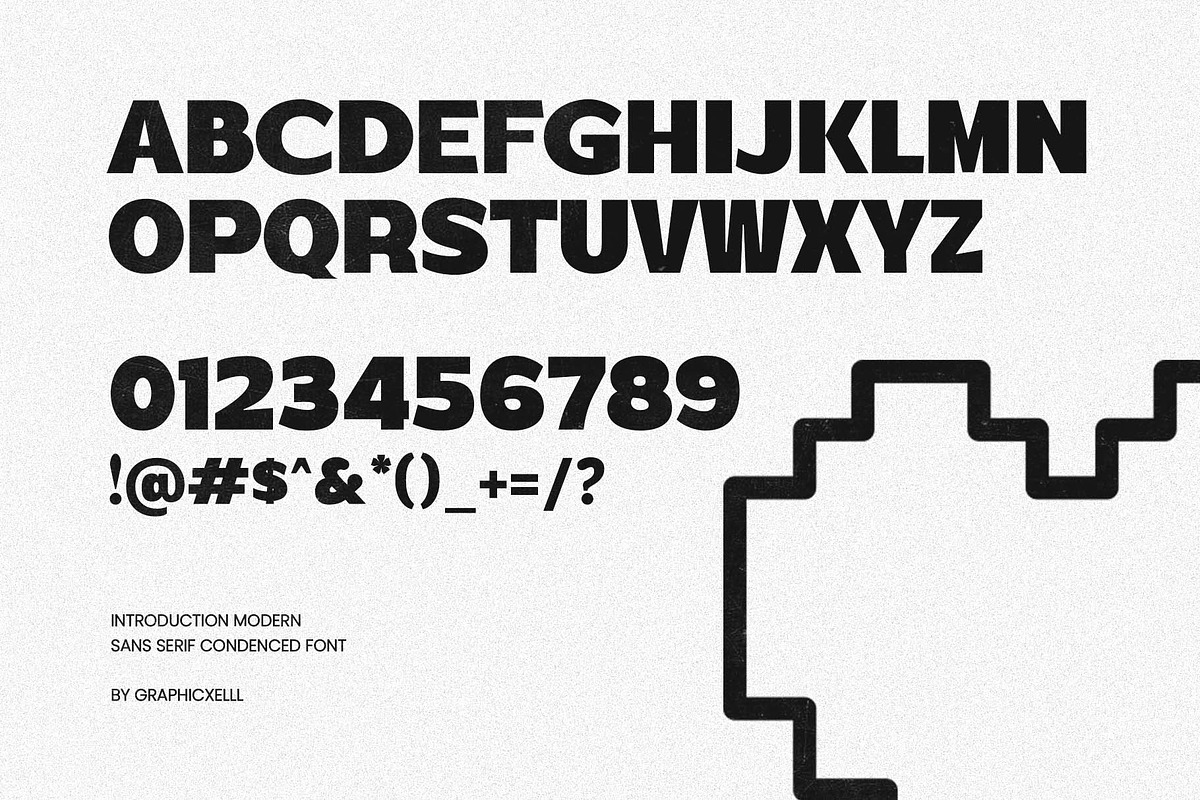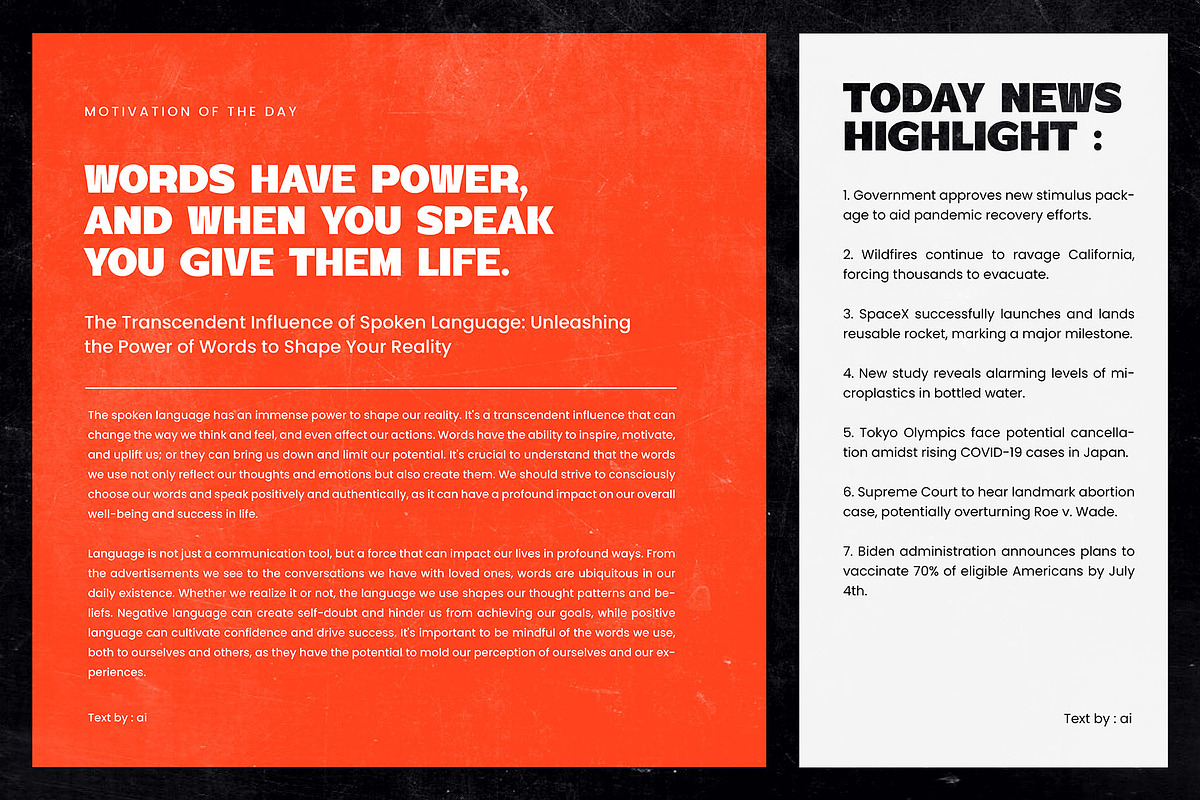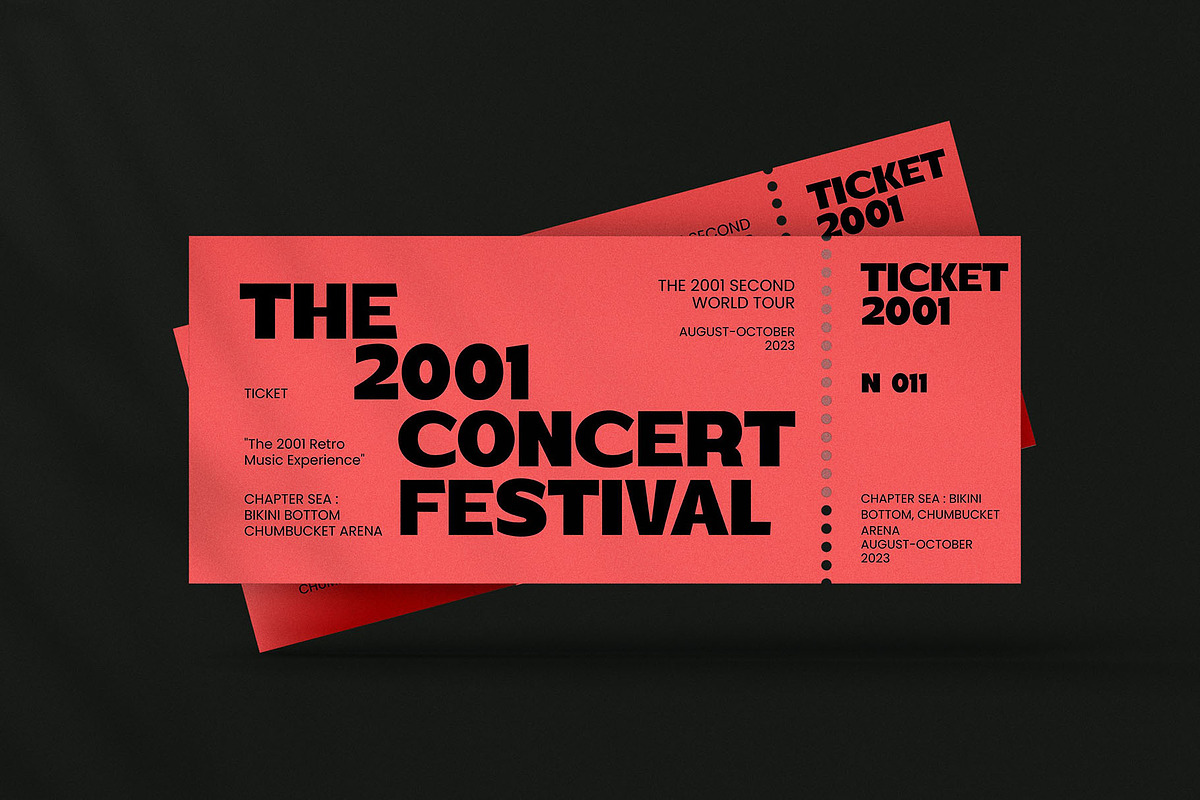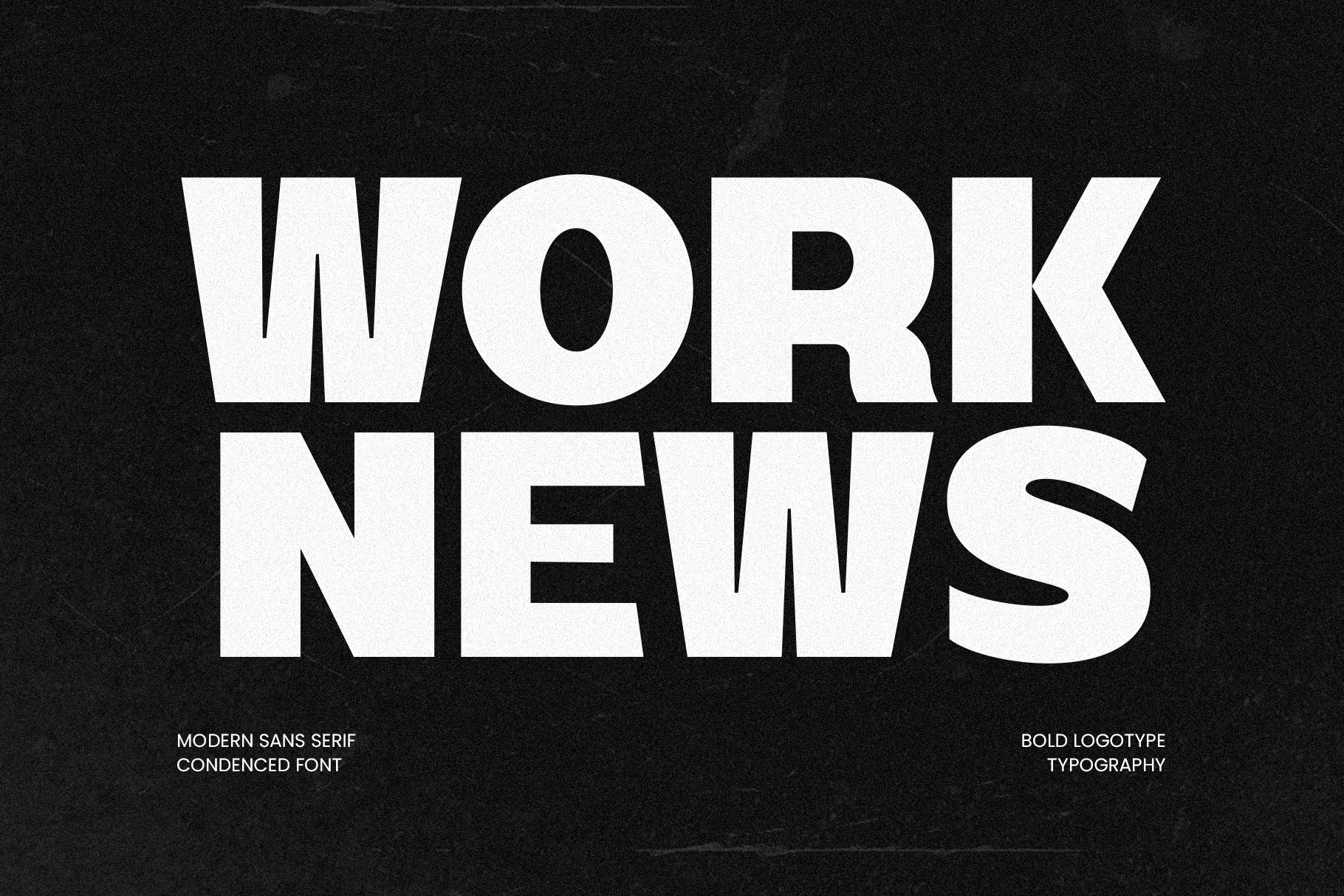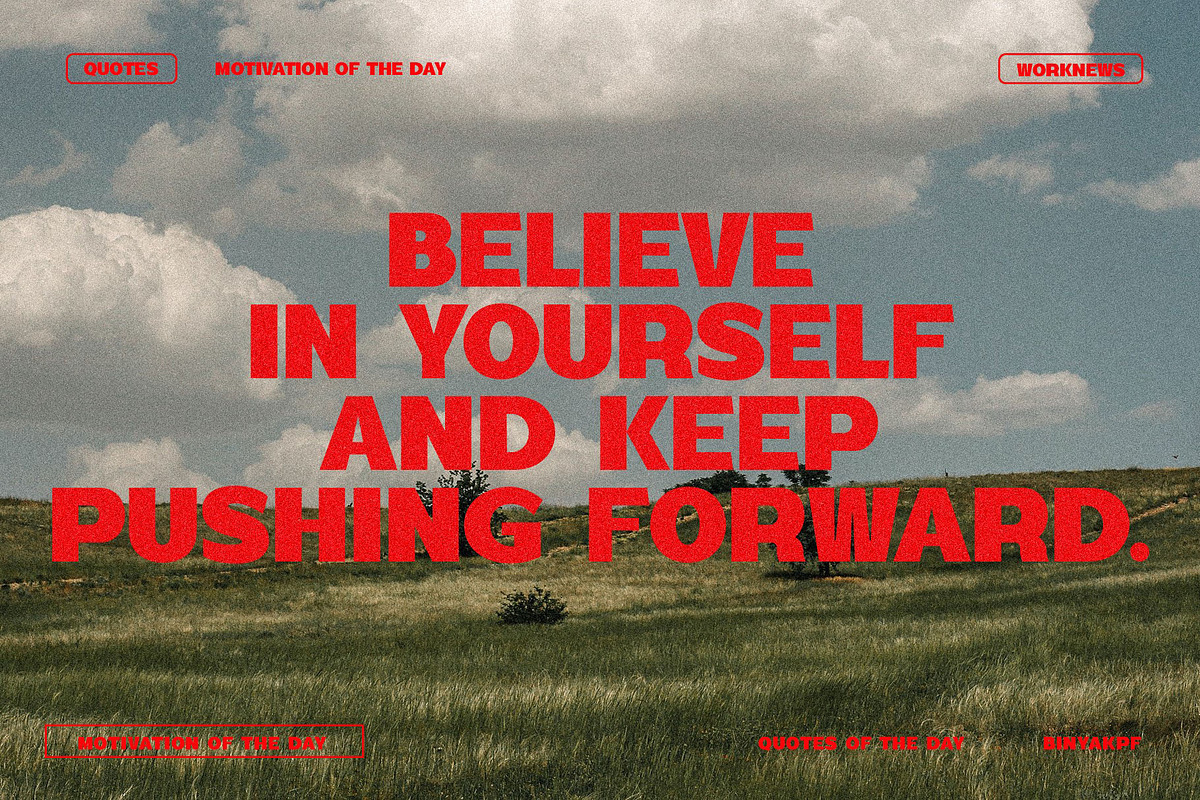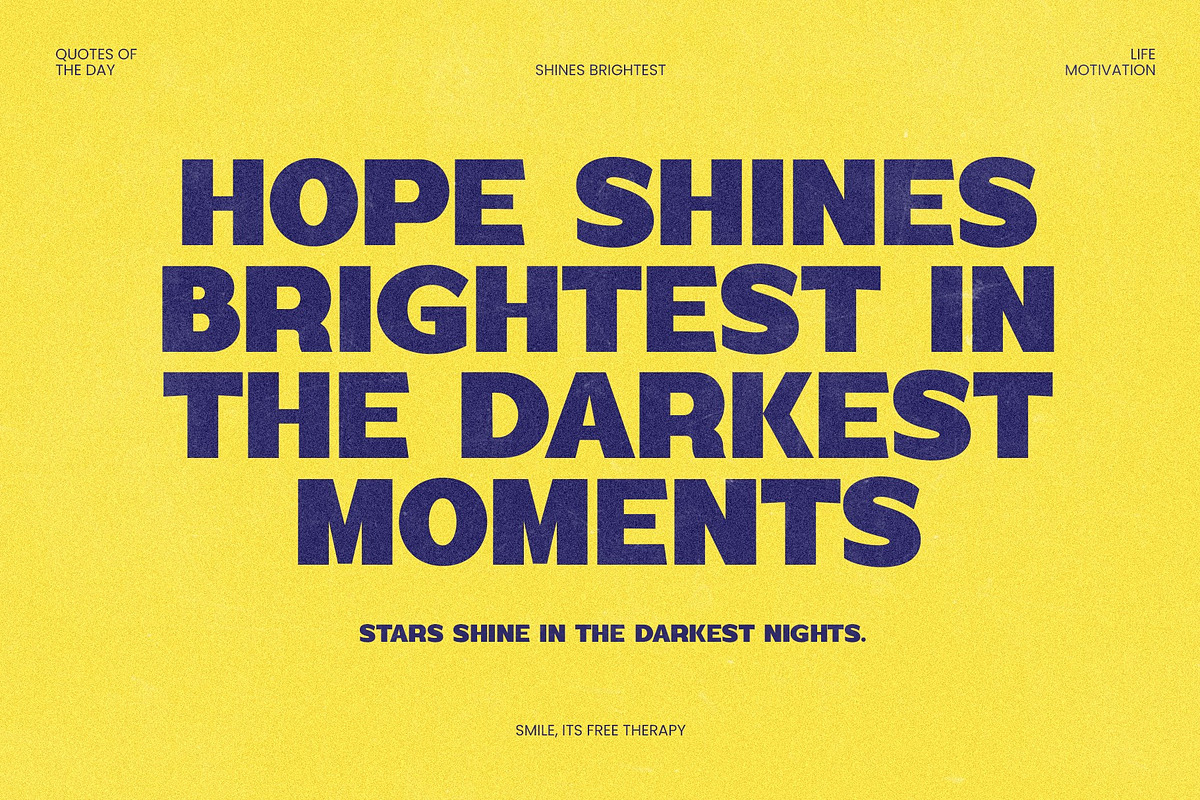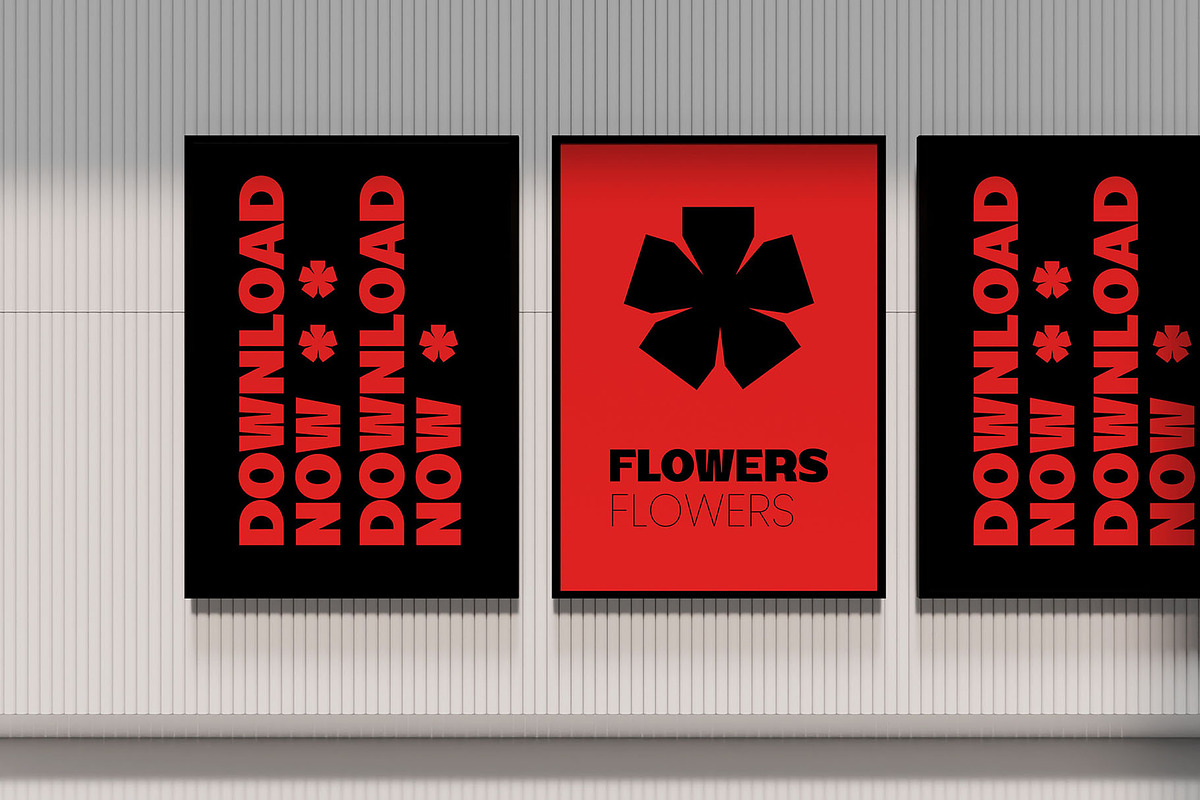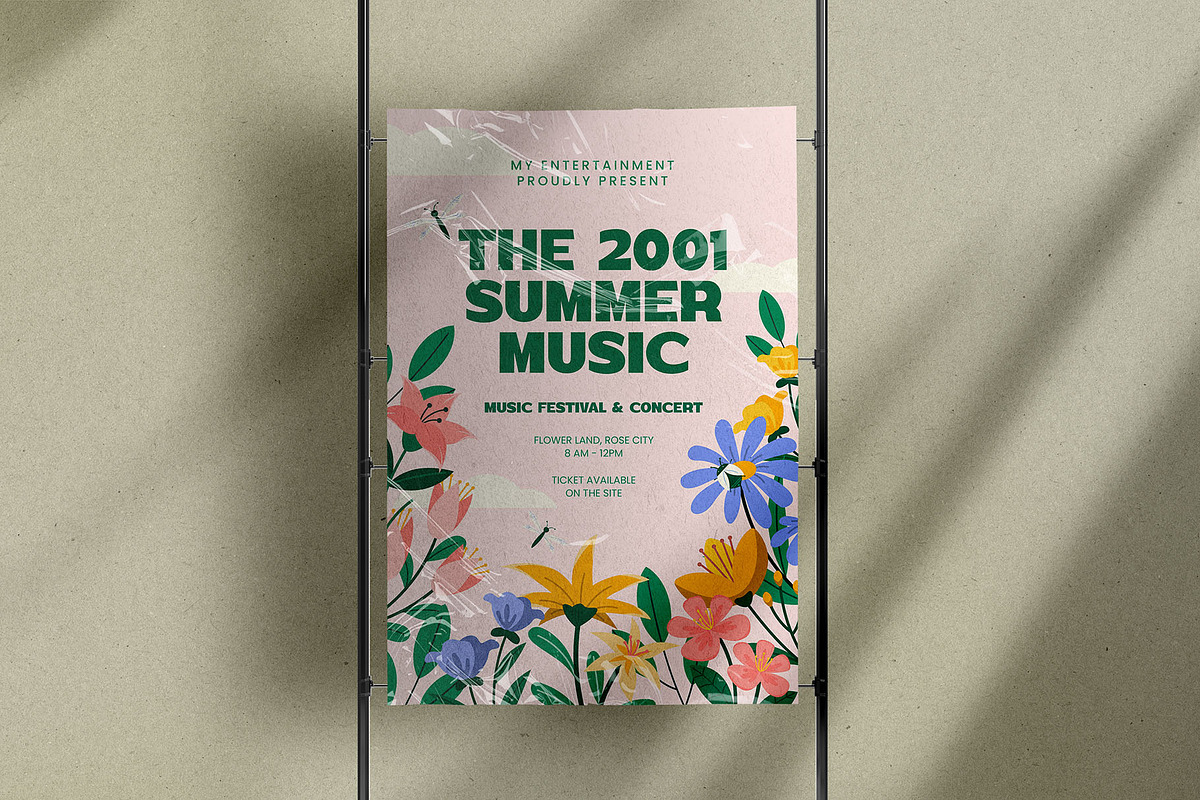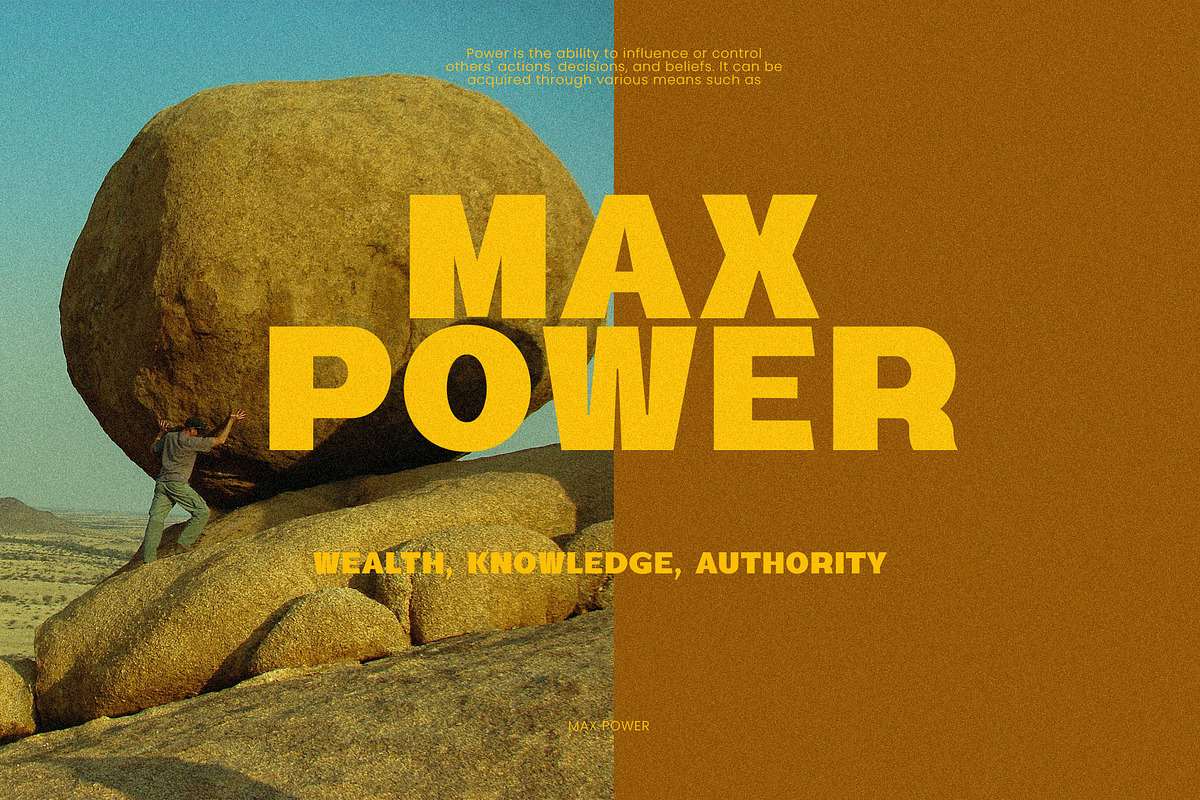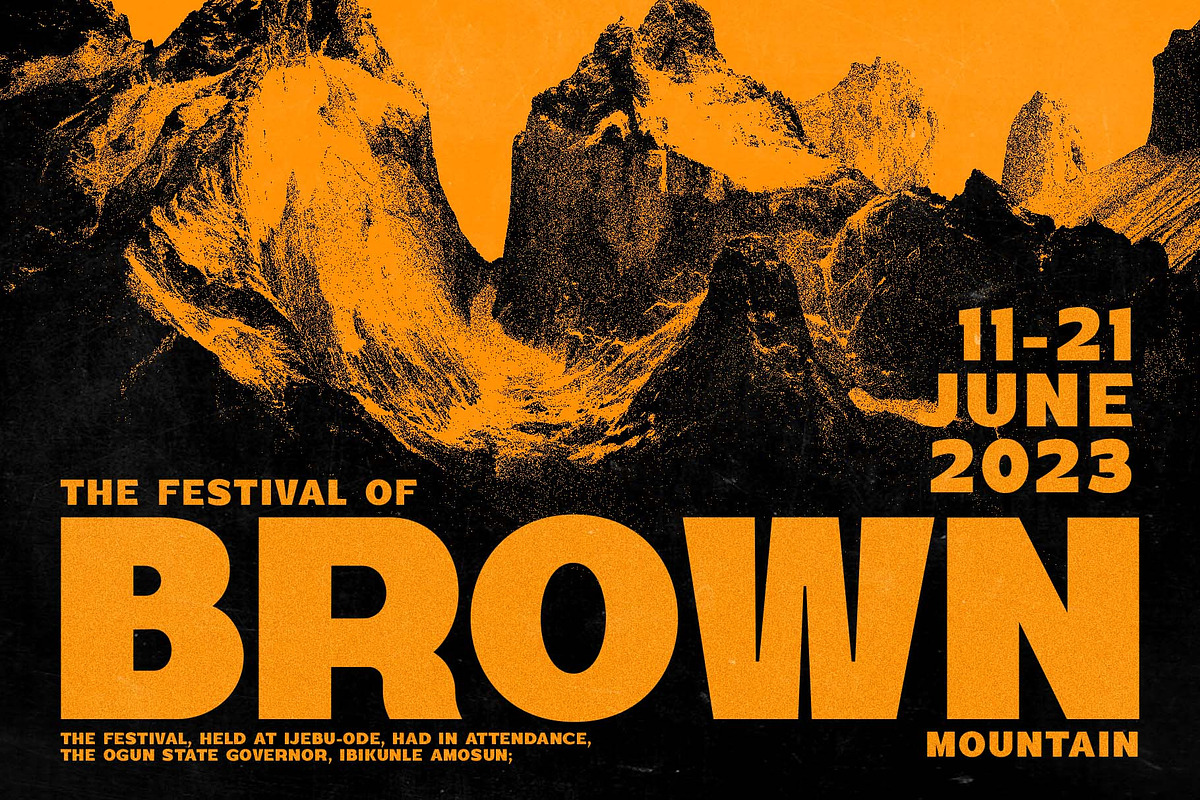
Work News Modern Sans Serif Font
Work News Modern Sans Serif Font inspired by the famous minimalist logo perfect for the purposes of designing templates, brochures, videos, advertising branding, logos, invitation, layout design, elegant crafting, beauty design and other